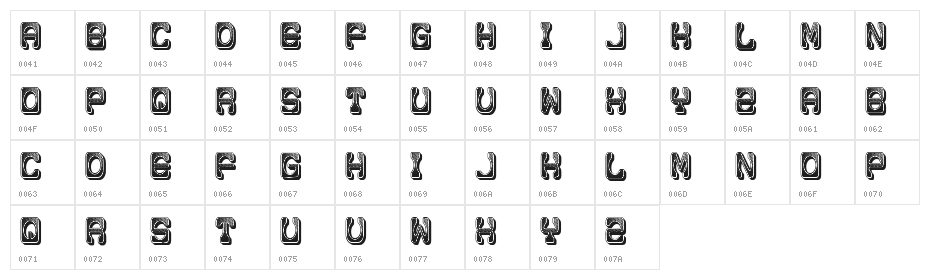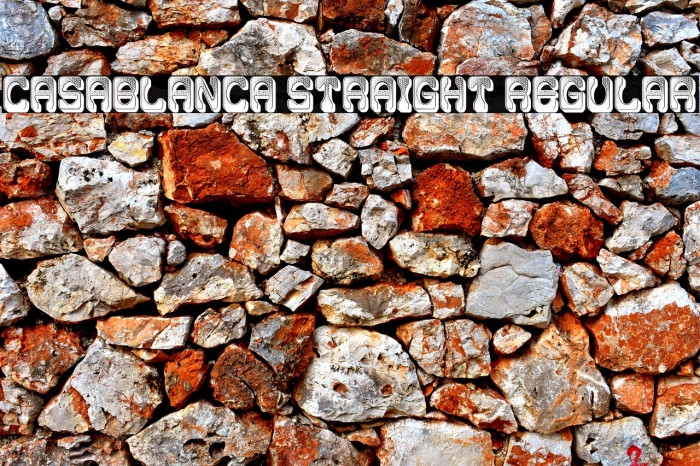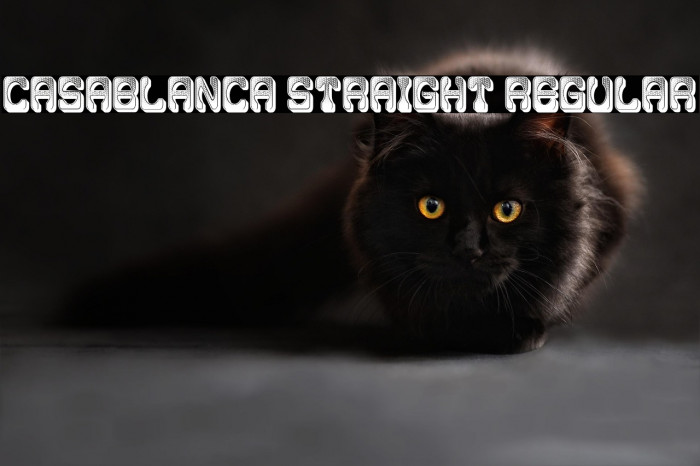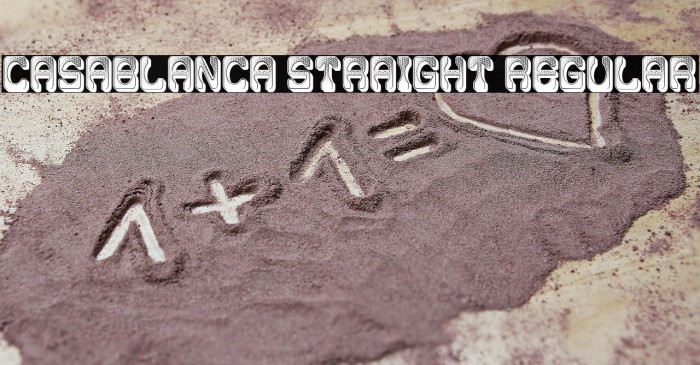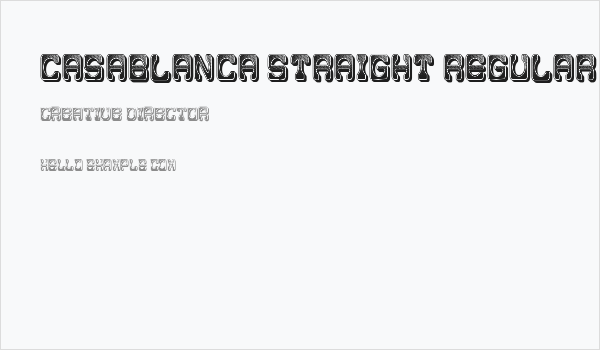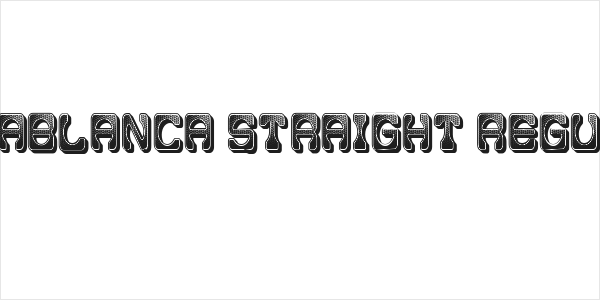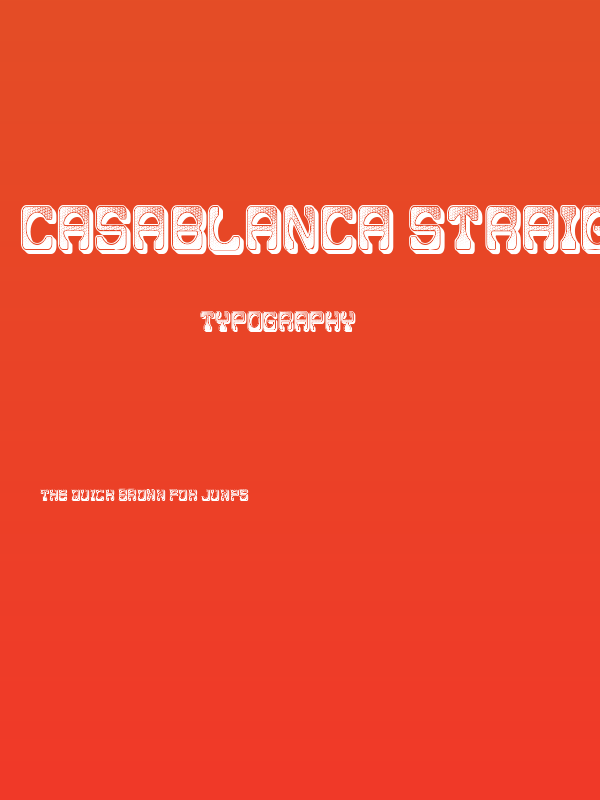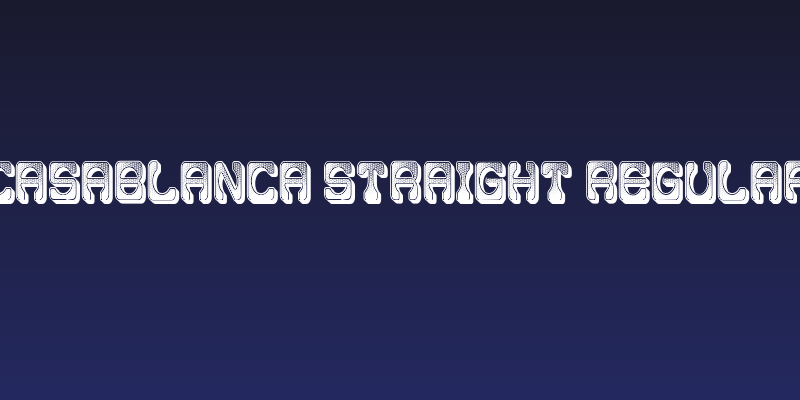
Casablanca Straight Regular Font
Casablanca Straight Regular Description
This font features a bold and decorative style with a three-dimensional effect. Each character is outlined with a thick black border, and the interior is filled with a dotted pattern that adds texture and depth. The letters are uppercase and have a consistent height, creating a uniform appearance. The overall design is playful and eye-catching, making it suitable for projects that require a strong visual impact. The font's unique style is reminiscent of retro or vintage aesthetics, adding a touch of nostalgia to any design.
Overall StyleVintage
Proposed ProjectsIdeal for posters, logos, headlines, and any design needing a retro or vintage flair.